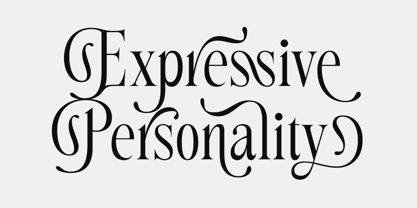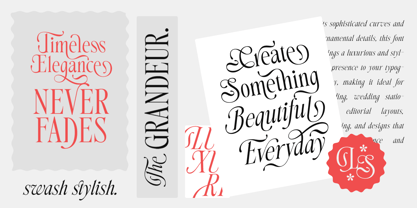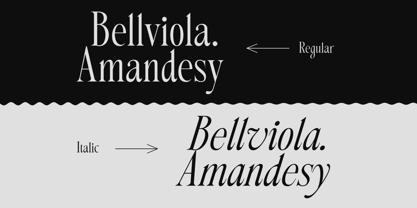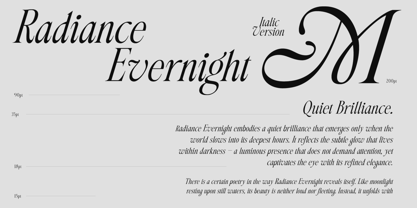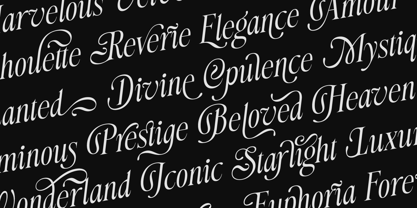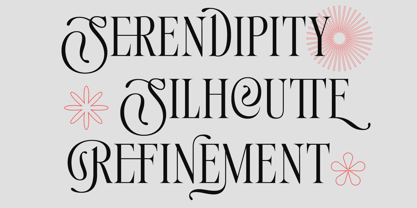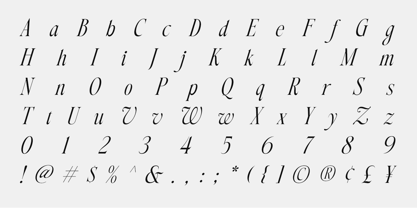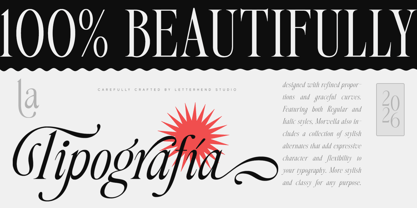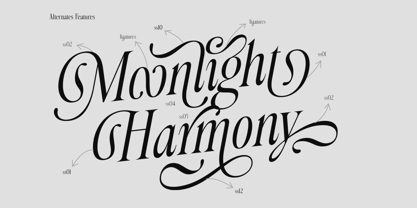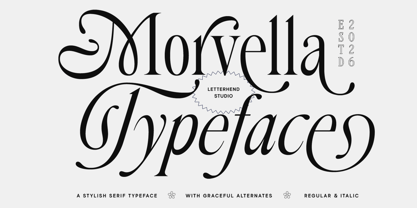
Morvella
The Morvella Font Family was designed by Hendry Juanda and published by Letterhend. Morvella contains 2 styles and family package options. More about this family
Designed with dramatic contrast and elegant flowing curves, Morvella Typeface brings a refined serif style with a modern editorial spirit. Its tall letterforms, graceful swashes, and sophisticated rhythm create a striking presence that feels both luxurious and expressive. Available in Regular and Italic, Morvella also features a set of graceful alternates that allow you to shape beautiful headlines, stylish logos, and elegant branding with ease. Features : Uppercase & lowercase Numbers and punctuation Alternates & Ligatures Multilingual Support PUA encoded